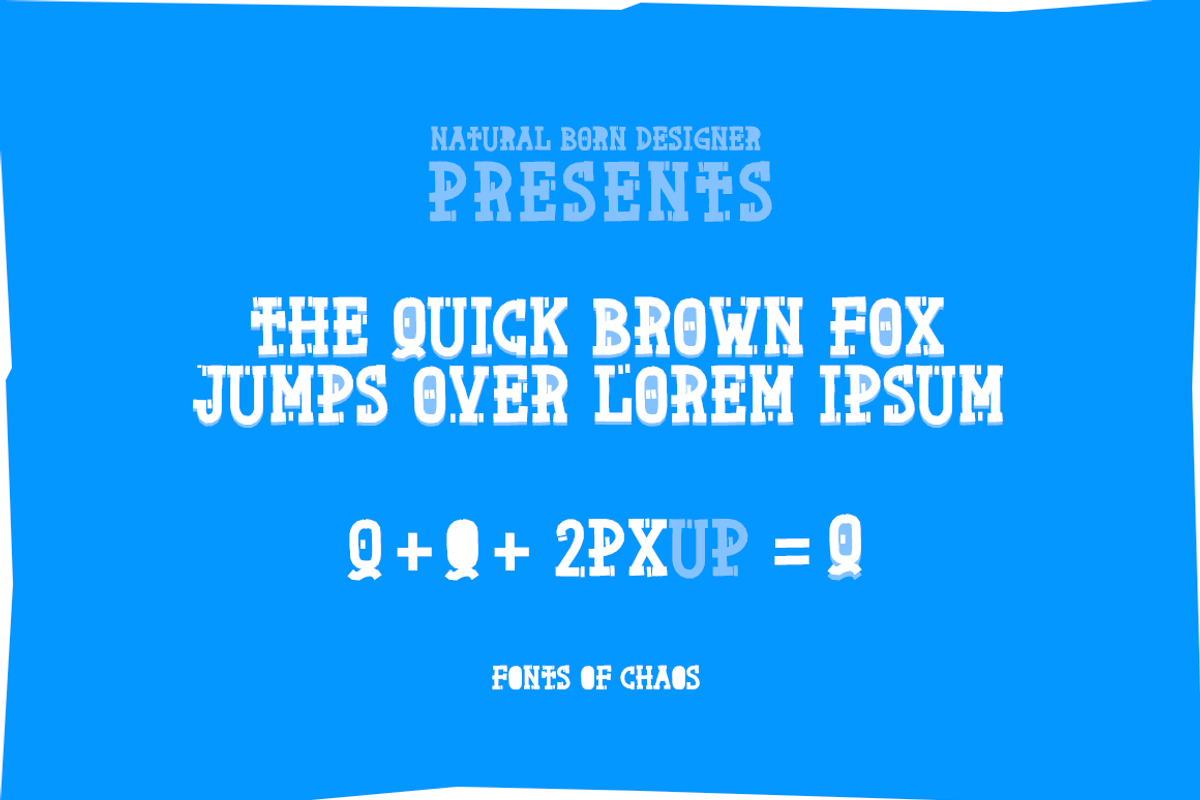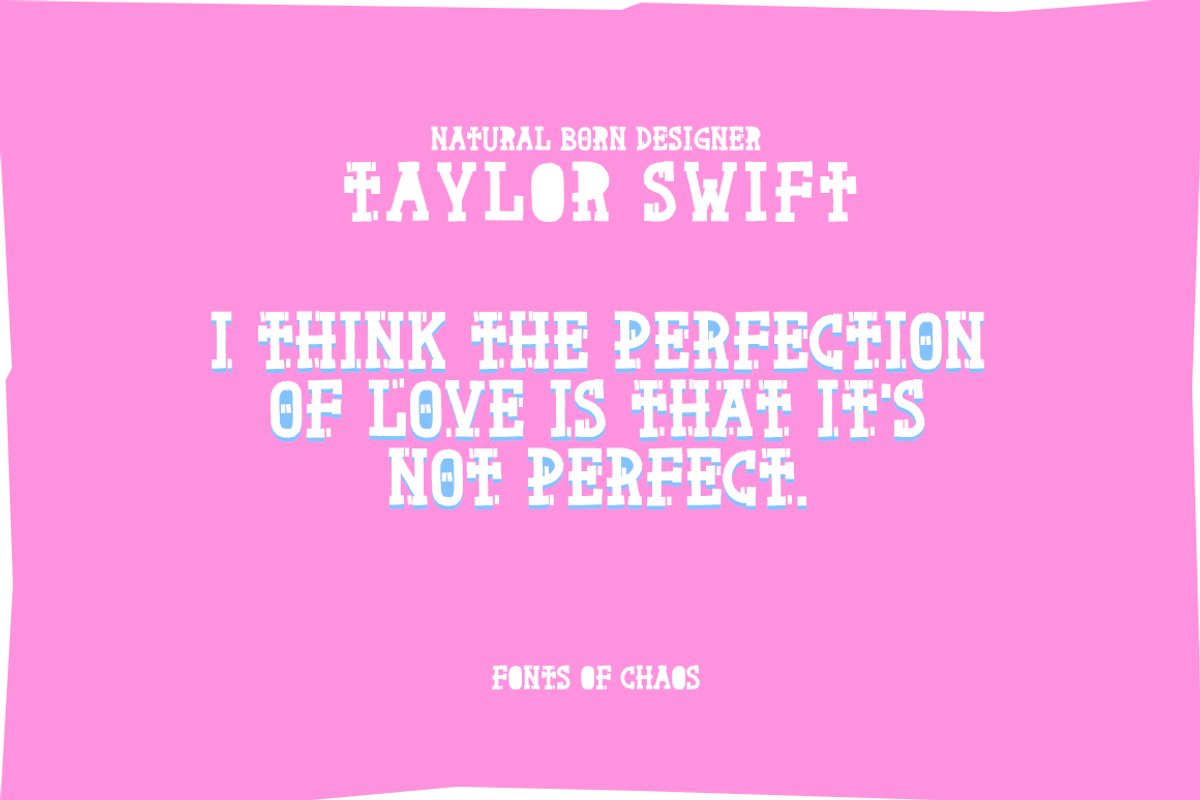
Natural Born Designer - font
Natural Born Designer - font by davidiscreative is a font selected for branding, posters, packaging, typography.
Why Natural Born Designer - font is worth a look
Natural Born Designer - font by davidiscreative fits naturally into Branding, posters, packaging, typography.